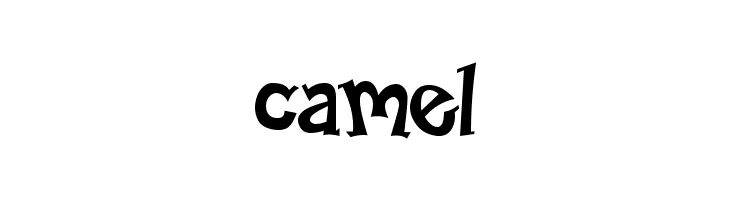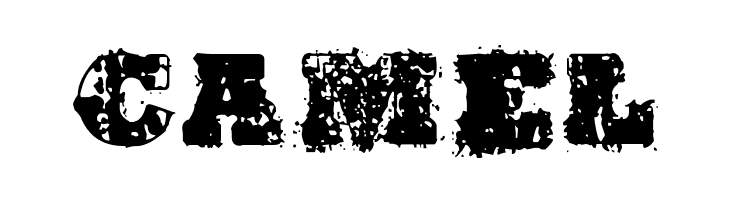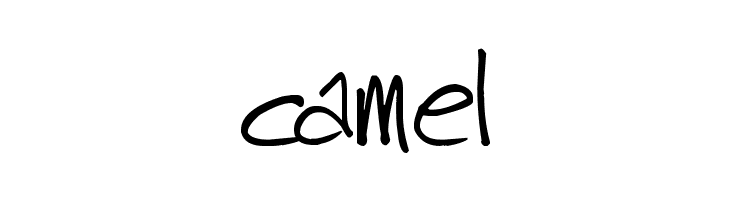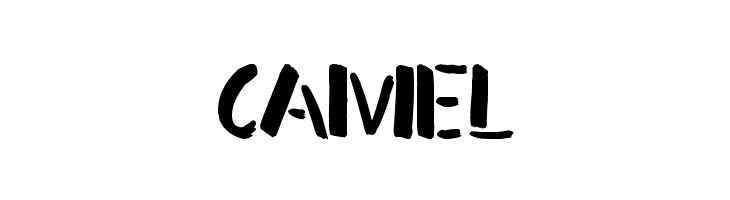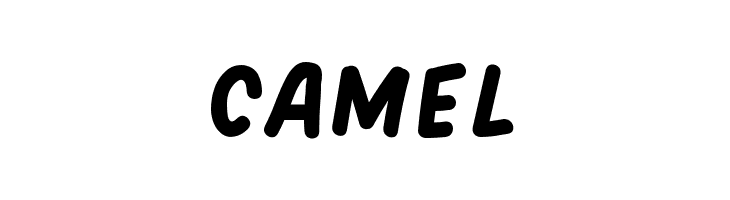
An artistic and decorative font with flowing, elongated letterforms.
A bold, geometric font with an abstract, futuristic style.
A geometric, tech-inspired font with a modern, Hangul-like design.
A dynamic and fluid handwritten font with elegant cursive strokes.
A bold, brush-style font with dynamic and artistic strokes.
A bold, handwritten-style font with a playful and dynamic appearance.
A sophisticated script font with elegant, flowing cursive letterforms.
A lively and dynamic handwritten font with fluid strokes and playful tilt.